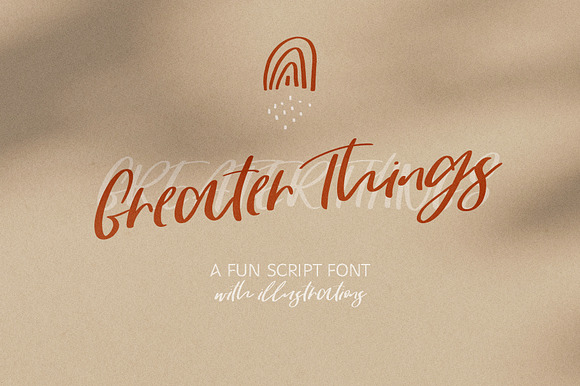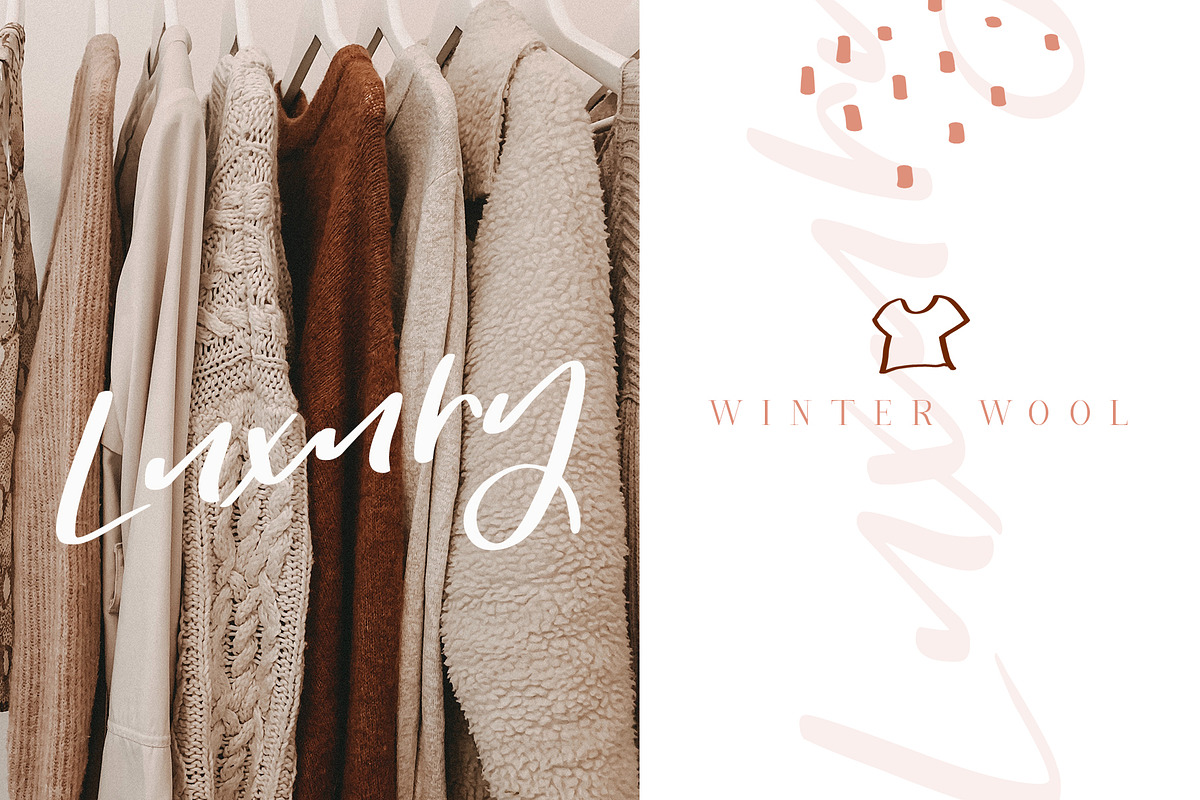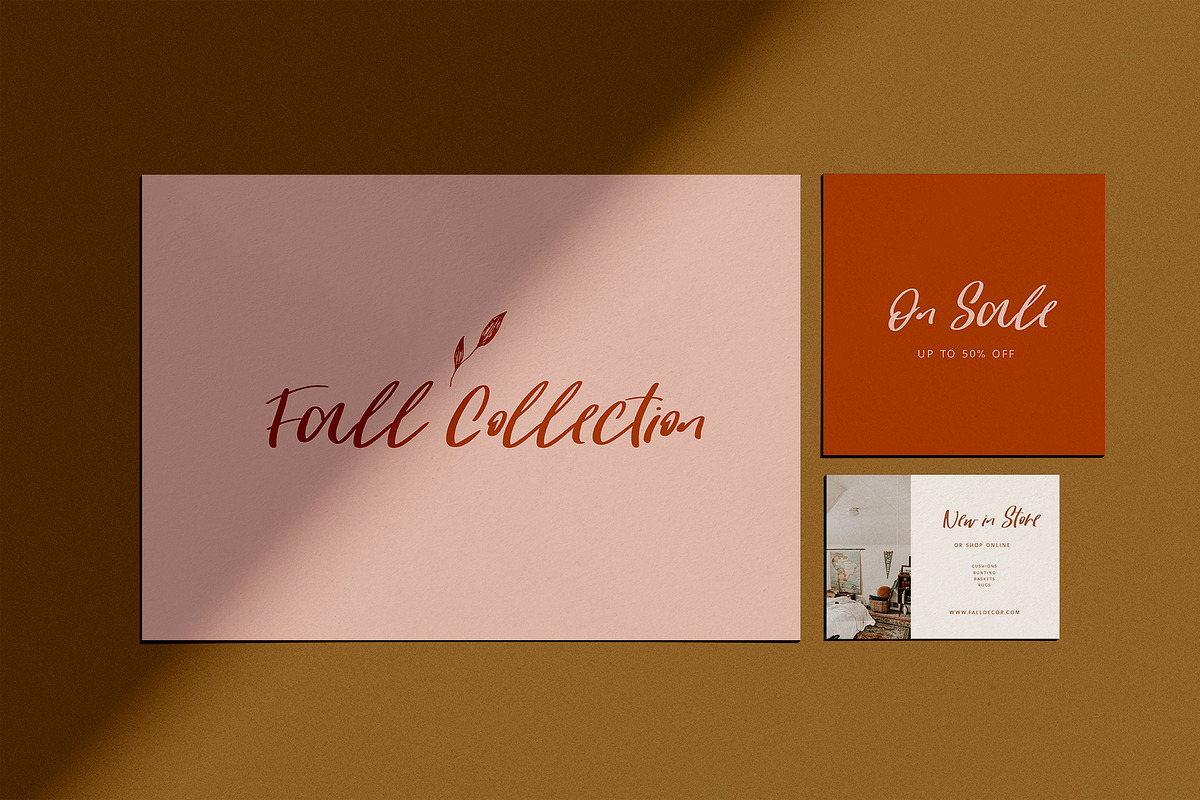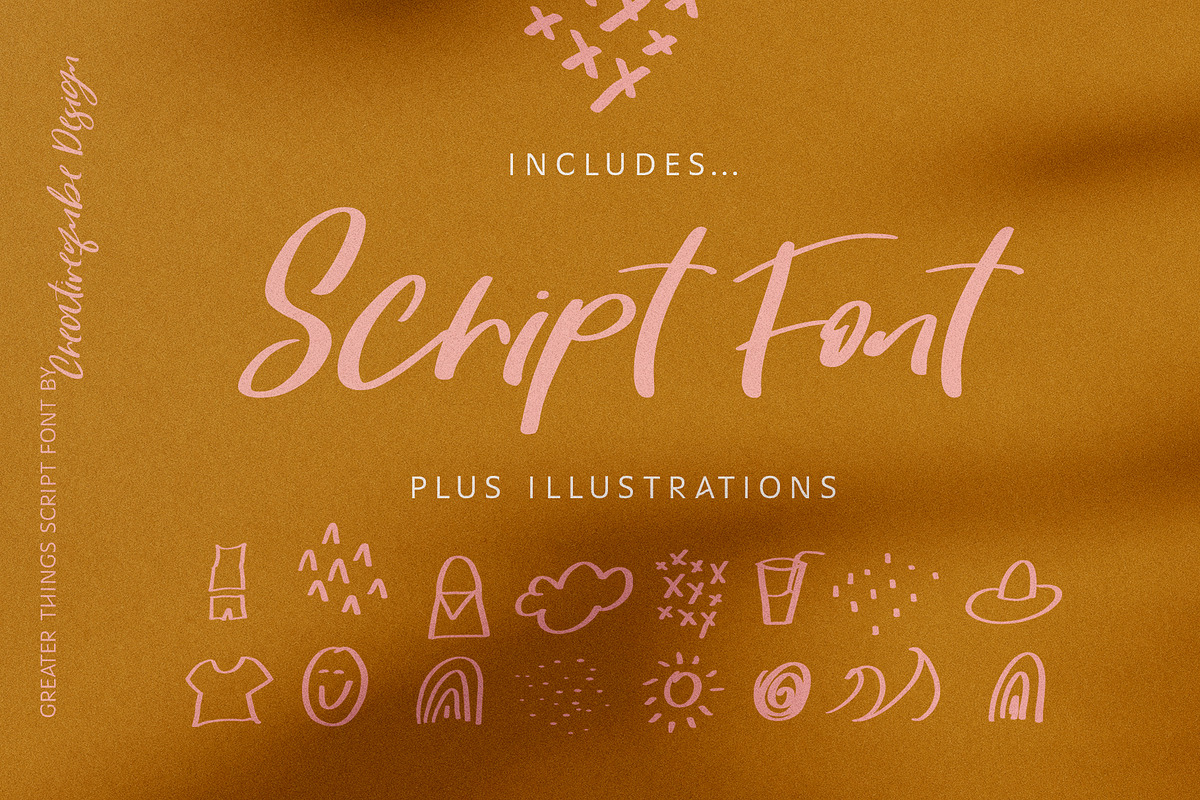
Introducing a new bold style scrip font - Greater Things
This is a fun bouncy hand written script, perfect for quotes, invites, weddings, posters, signs, branding, logos, planner stickers, and much more!
- Greater Things includes a full set of ligatures plus some fun illustrations to create that genuine hand written look and creative logos!